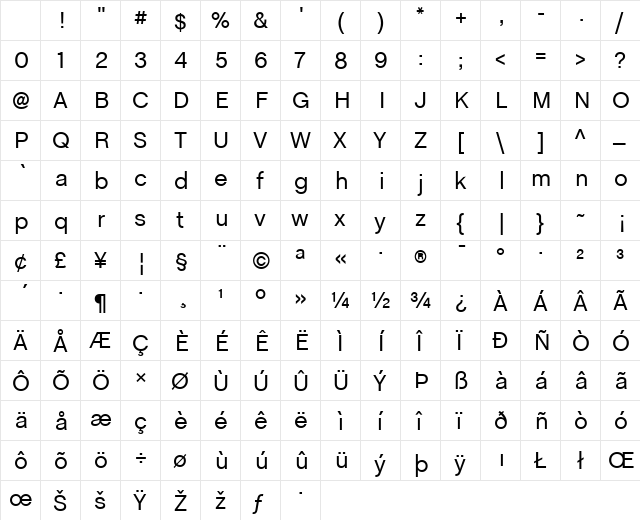
Complete ChaletBookTT Regular glyph index. Displaying only characters natively supported by ChaletBookTT Regular font.
ChaletBookTT is a composed and adaptable typeface that performs quietly and consistently across a wide range of design contexts.